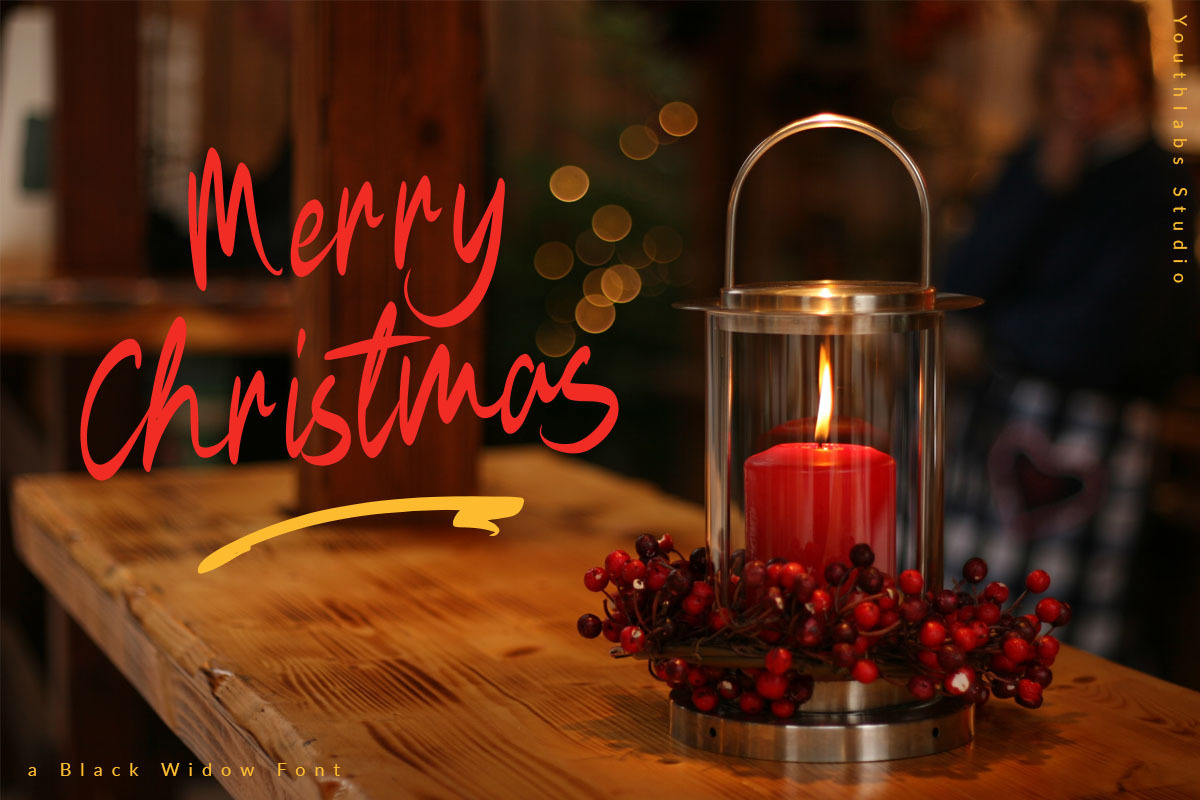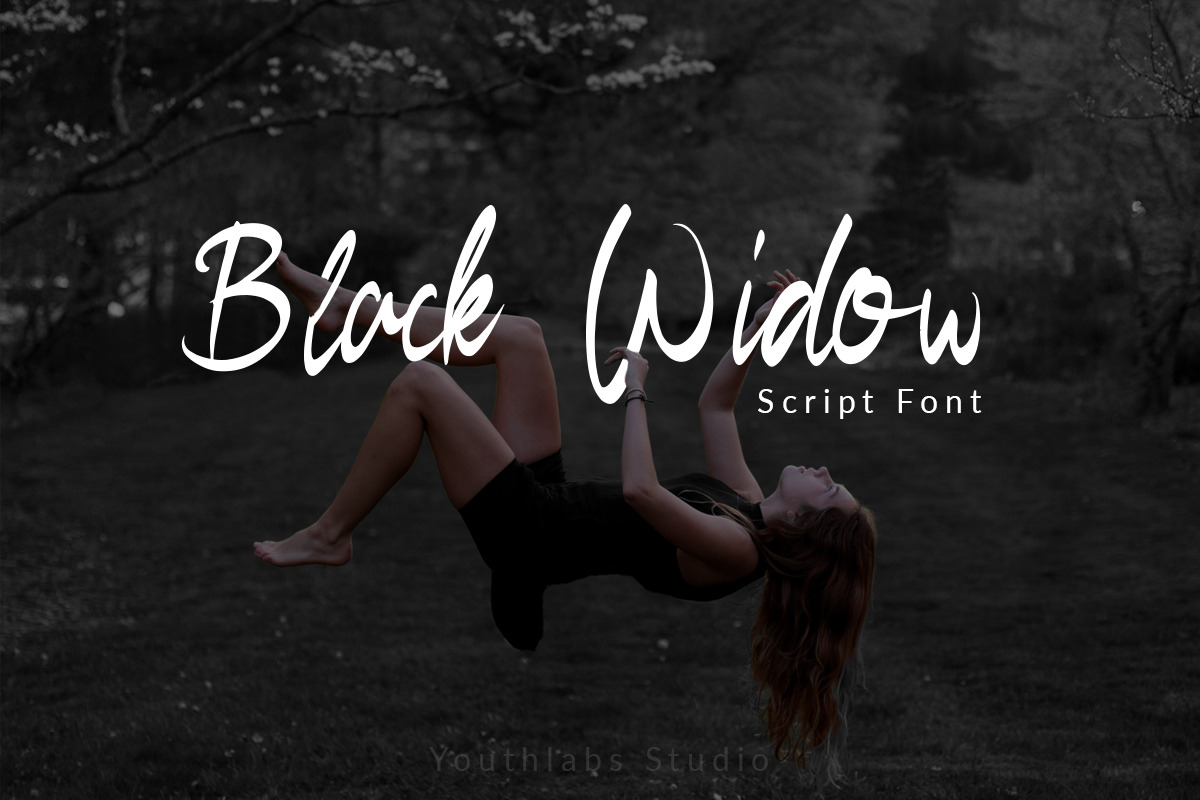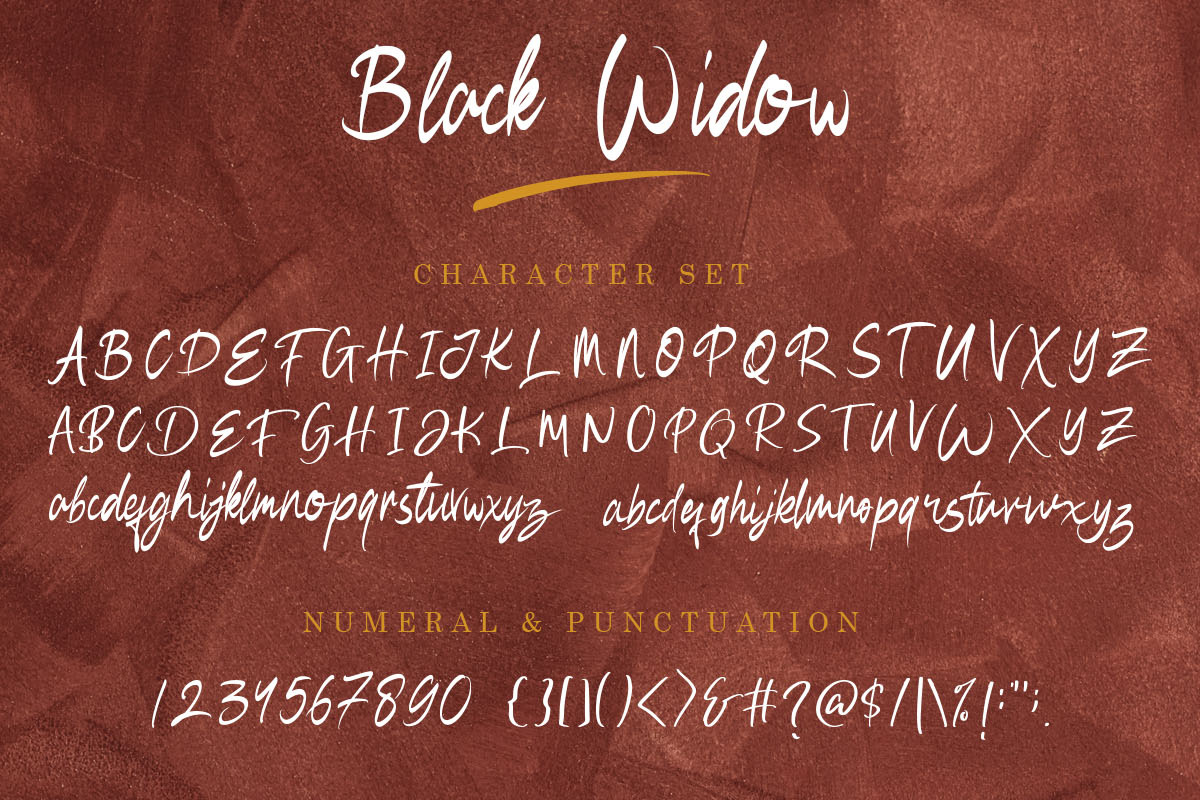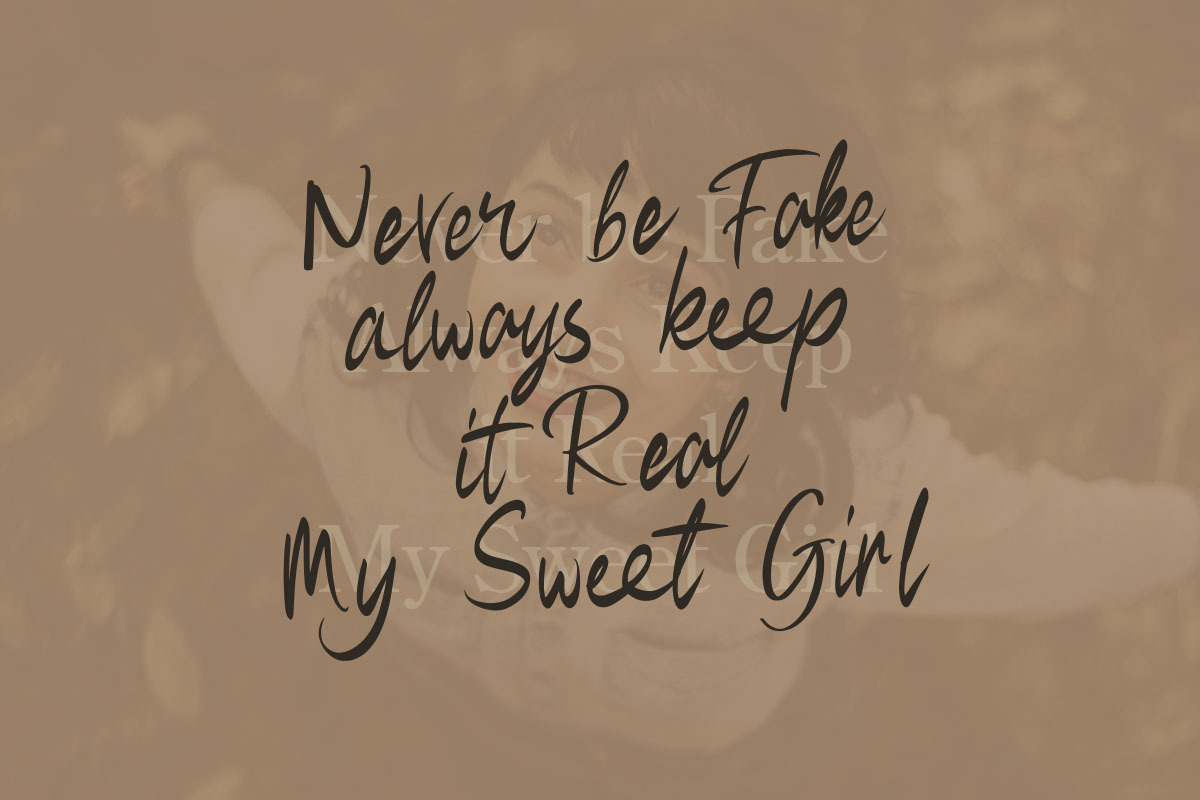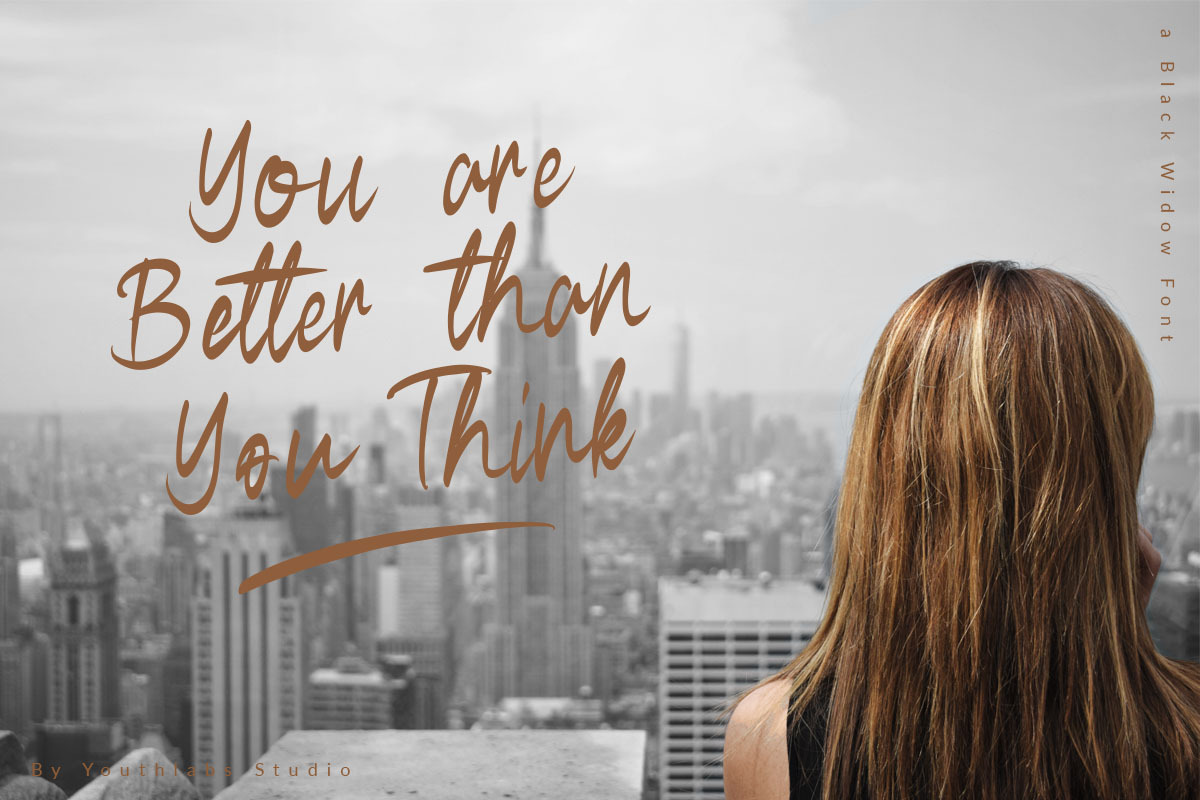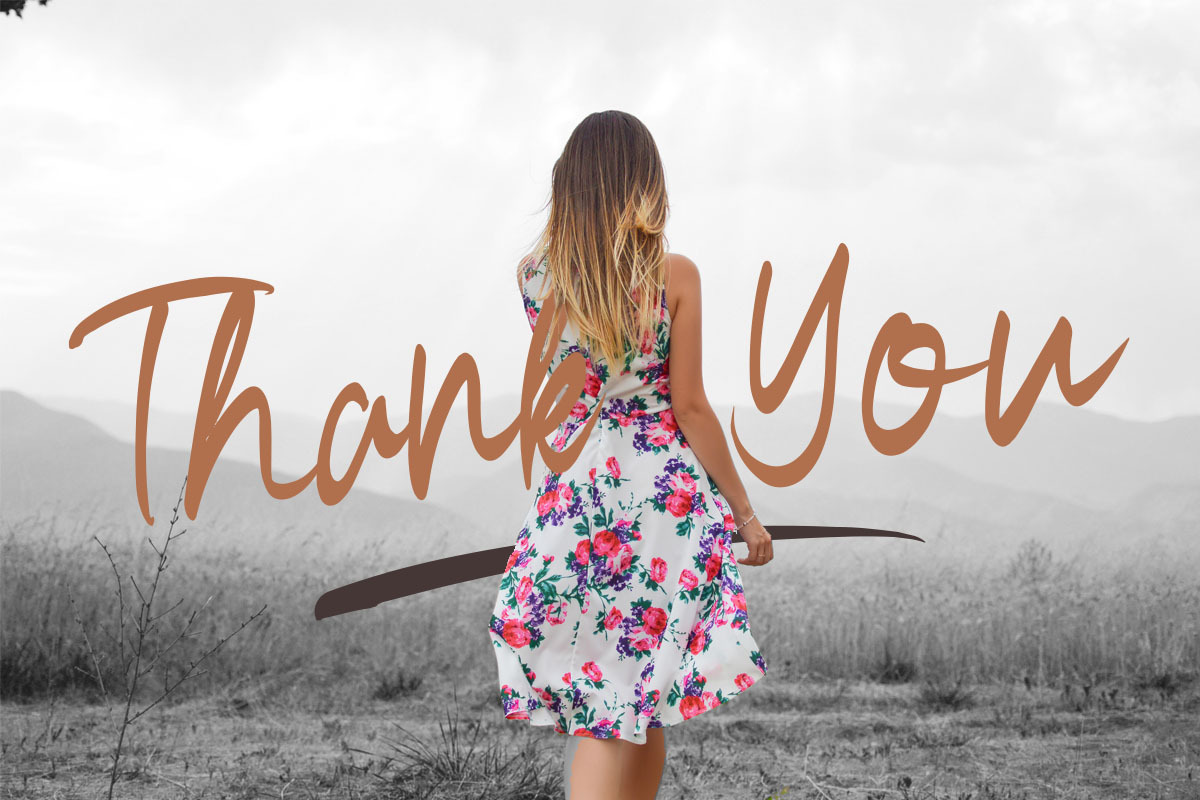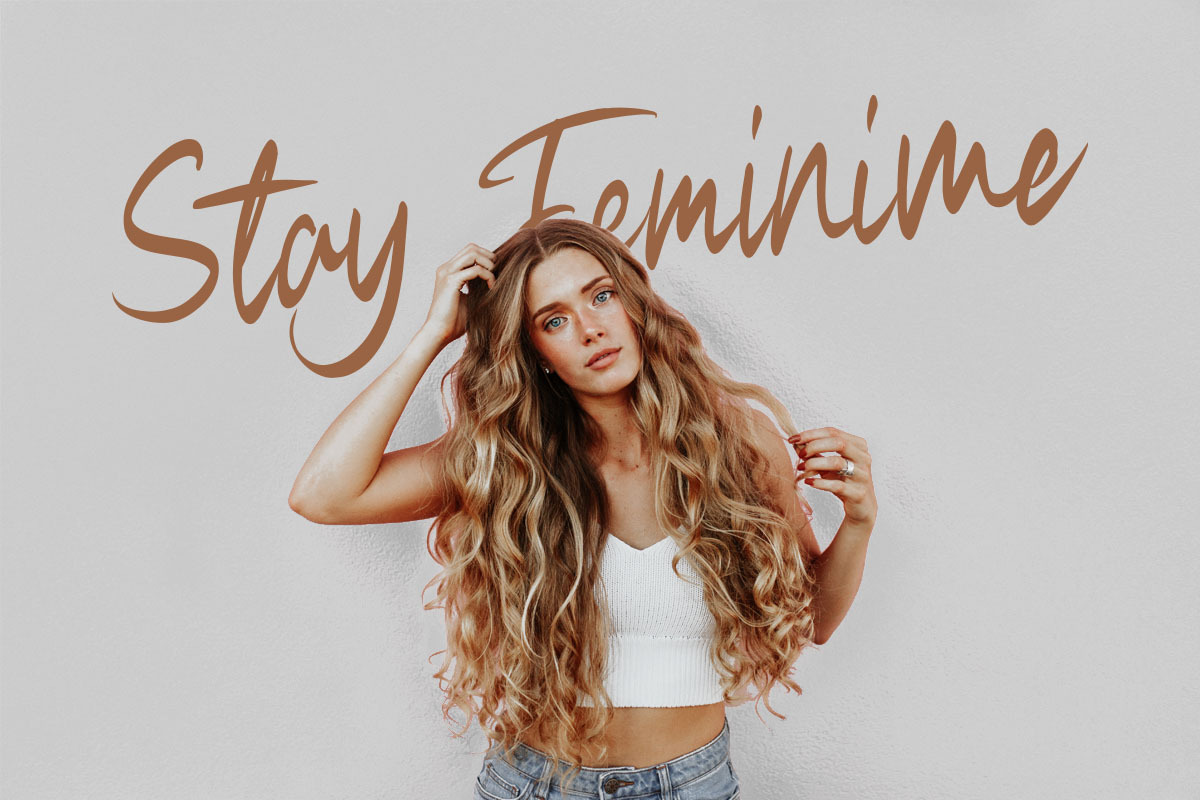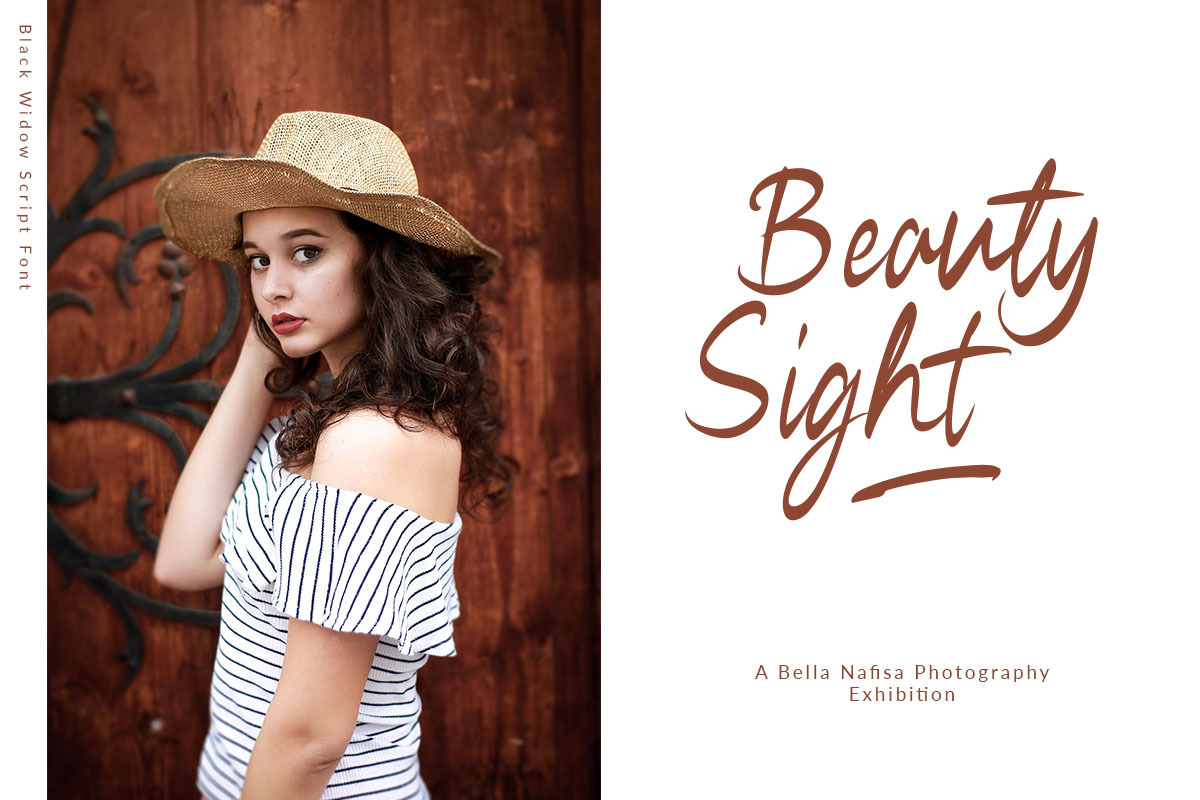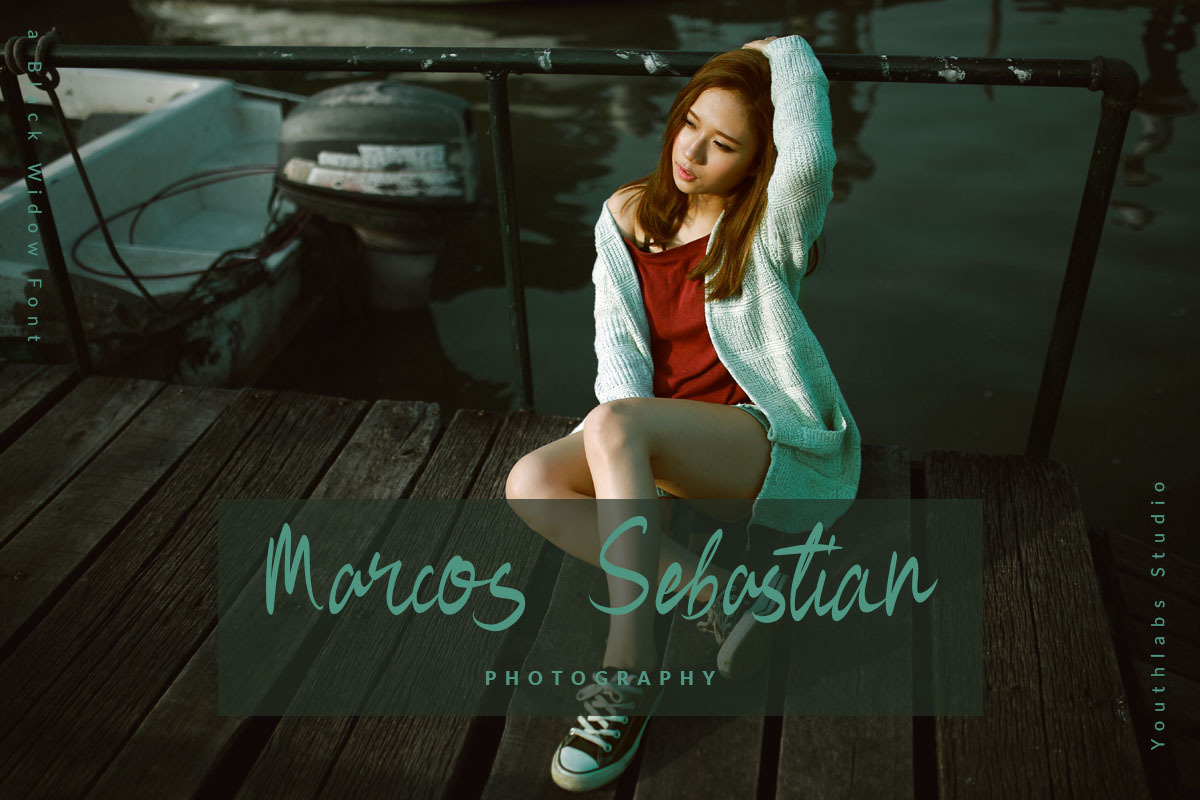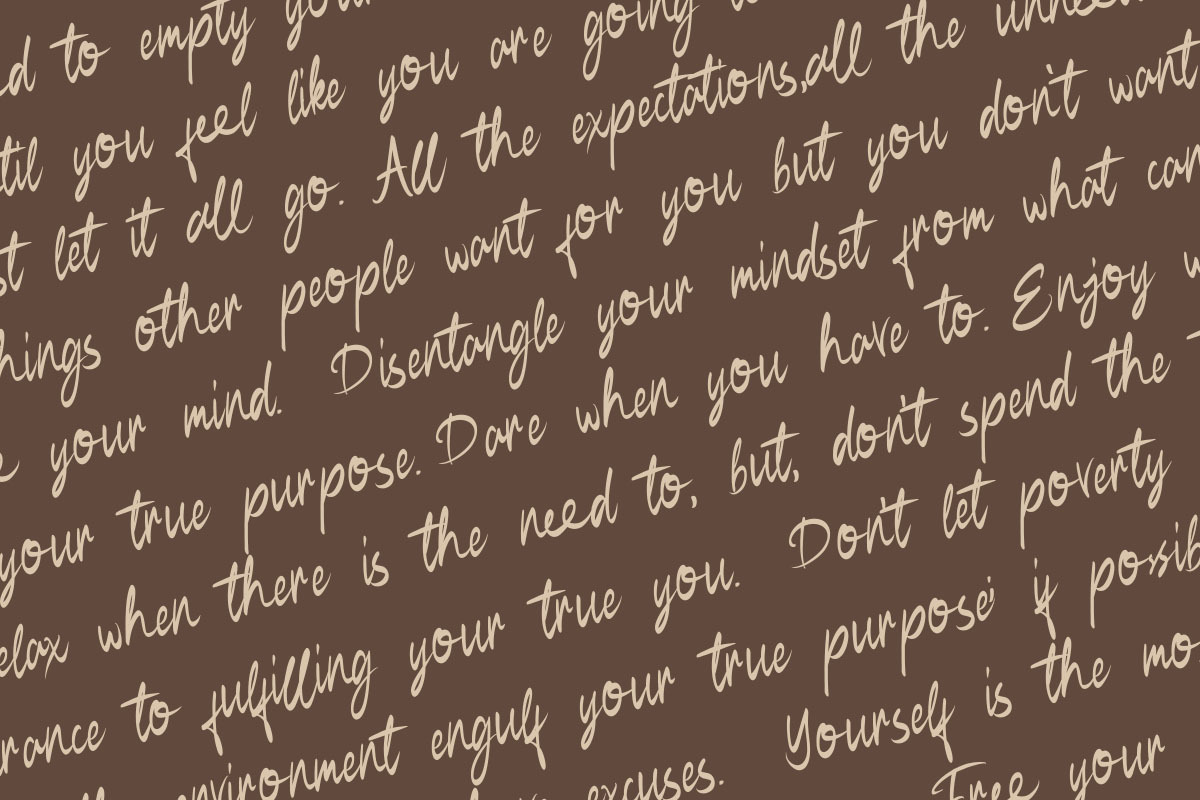
Black Widow - Script Font
Proudly Black Widow Script Font. Inspired from Marvels's Character - Black Widow, Black Widow Font made to look elegant but still strong in every character. This font with the Calligraphy Brush technique with a digital touch . Black Widow Font made with the beautifull of Hand Calligraphy with Alternaternate Character for exploring more design
- Alternate Uppercase